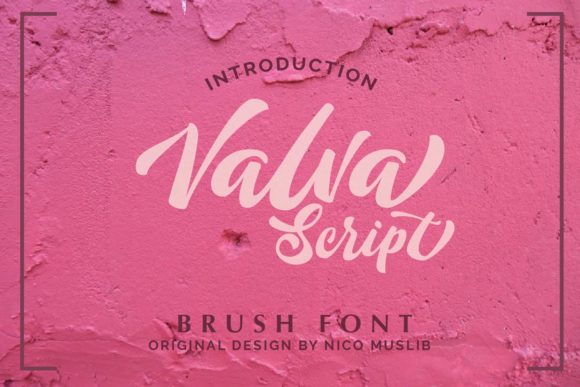
Embrace the enchantment of a Christmas wonderland with Valva Font, a script font that radiates warmth and elegance. Step into a world where your holiday designs come alive with the festive spirit of this meticulously crafted font.
With Valva Font, witness the magic of your words dancing on the page, evoking a sense of nostalgia and heartfelt joy. Each letter, meticulously designed by Nico Muslib, exudes a unique charm, breathing life into your creative visions.
Picture your Christmas cards adorned with the enchanting strokes of Valva Font, conveying your warmest wishes in a way that captures hearts. Let your invitations sparkle with the festive glow of this font, setting the tone for a memorable celebration.
With Valva Font, your designs will radiate a timeless elegance that transcends trends. Experience the endless possibilities as you craft breathtaking posters, flyers, and social media graphics that resonate with your audience.
Valva Font is not just a font; it's a portal to a world where imagination meets artistry. Embrace the magic of the season and let your creativity soar with this font that's sure to make your designs shine brighter than the North Star.